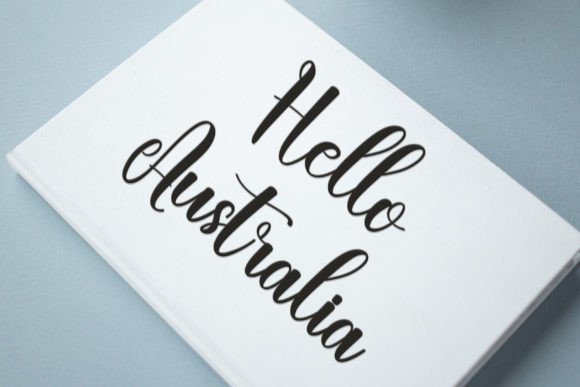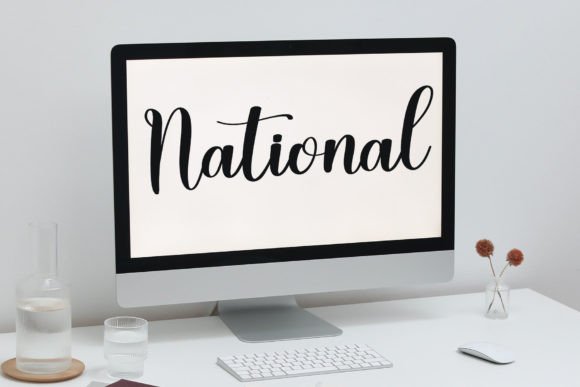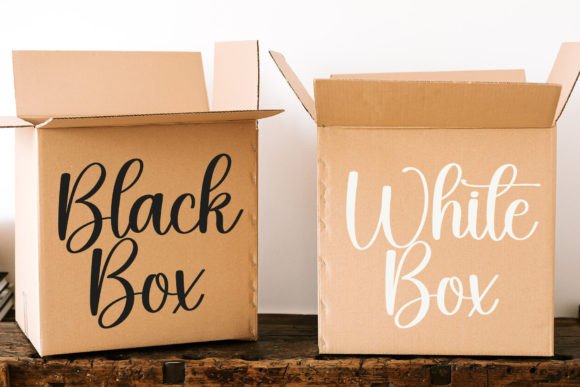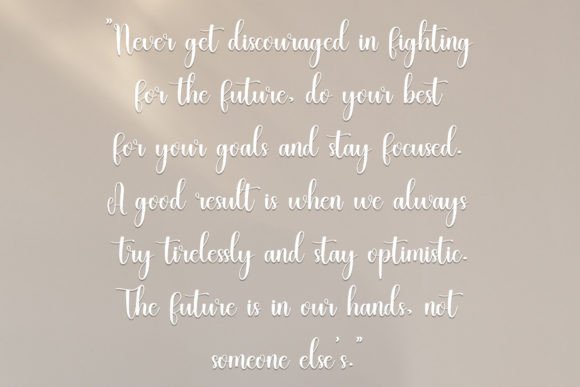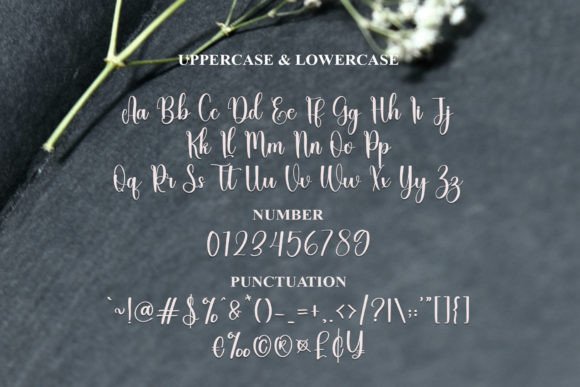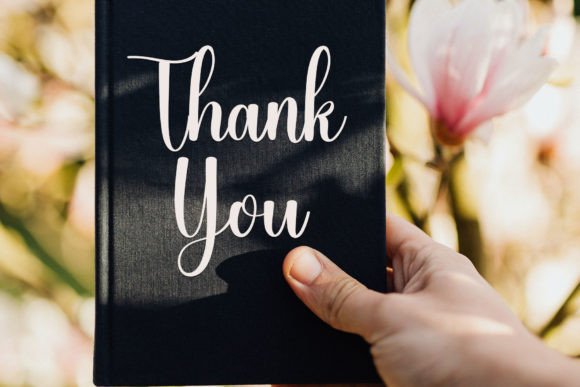
Adding a Touch of Whimsy: The Magic of Children Font
Have you ever been brainstorming a creative project and suddenly a spark of inspiration hits you? Maybe it’s a quirky idea for a birthday card, or a charming concept for a children’s book. Whatever it is, it’s those special moments that make design so exciting. For me, it’s the feeling of bringing a project to life with the perfect font.
Enter the enchanting Children Font, a versatile script font that’s sure to add a touch of romance to your next project. With its wide range of applications, from greeting cards to headlines, this font is perfect for designers looking to add a whimsical feel to their work. Whether you’re a seasoned pro or just starting out, the Children Font is a valuable tool to have in your design arsenal.
So why choose the Children Font? For one, it’s incredibly versatile, making it perfect for a variety of projects. Plus, its charming handwriting style is sure to add a personal touch to any design. With the Children Font, you can bring a little bit of magic to your next project and make it truly unforgettable.
Key Features of “Children Font”
- Unique Characteristics: Features rounded edges, smooth curves, and child-friendly letterforms
- Style Options: Offers 5 font styles: Regular, Italic, Bold, Bold Italic, and Outline
Designer Review: Children Font
At first glance, the Children Font seems like a whimsical and playful addition to any design project. ✨ The rounded edges and soft curves create a sense of friendliness and approachability, making it perfect for children’s books, educational materials, and family-friendly brands.
- The font is highly customizable, allowing designers to adjust the size, color, and style to suit their needs.
- The font’s versatility makes it suitable for a wide range of applications, from headings to body text.
- The font’s uniqueness adds a touch of personality to designs, setting them apart from more generic fonts.
However, there are some limitations to consider. ⚠️ The font may not be the best choice for formal or professional designs, as it can come across as too playful or immature. Additionally, the font’s rounded edges can make it difficult to read at small sizes or in low-light conditions.
Overall, I think the Children Font is a great addition to any designer’s toolkit. While it may not be suitable for every project, it’s a great choice for designs that require a sense of playfulness and approachability. With its high level of customization and versatility, it’s a font that’s sure to bring a smile to users’ faces.
Tip: Use the Children Font in combination with bright, bold colors and playful graphics to create eye-catching designs for kids.
Tip: Use the Children Font in conjunction with custom illustrations and graphics to create a cohesive and engaging design.
Tip: Use the Children Font to create engaging titles, headings, and body text in educational presentations and documents.
The Children Font is ideal for:
- Children’s book covers and illustrations
- Education and learning materials
- Kids’ party invitations and decorations
- Children’s product packaging and branding